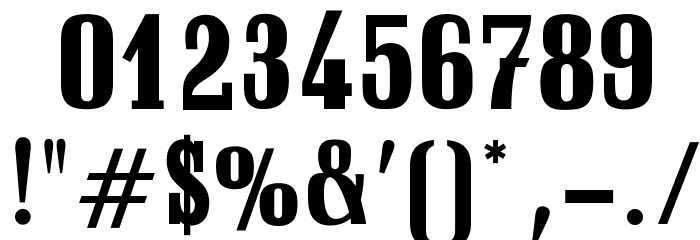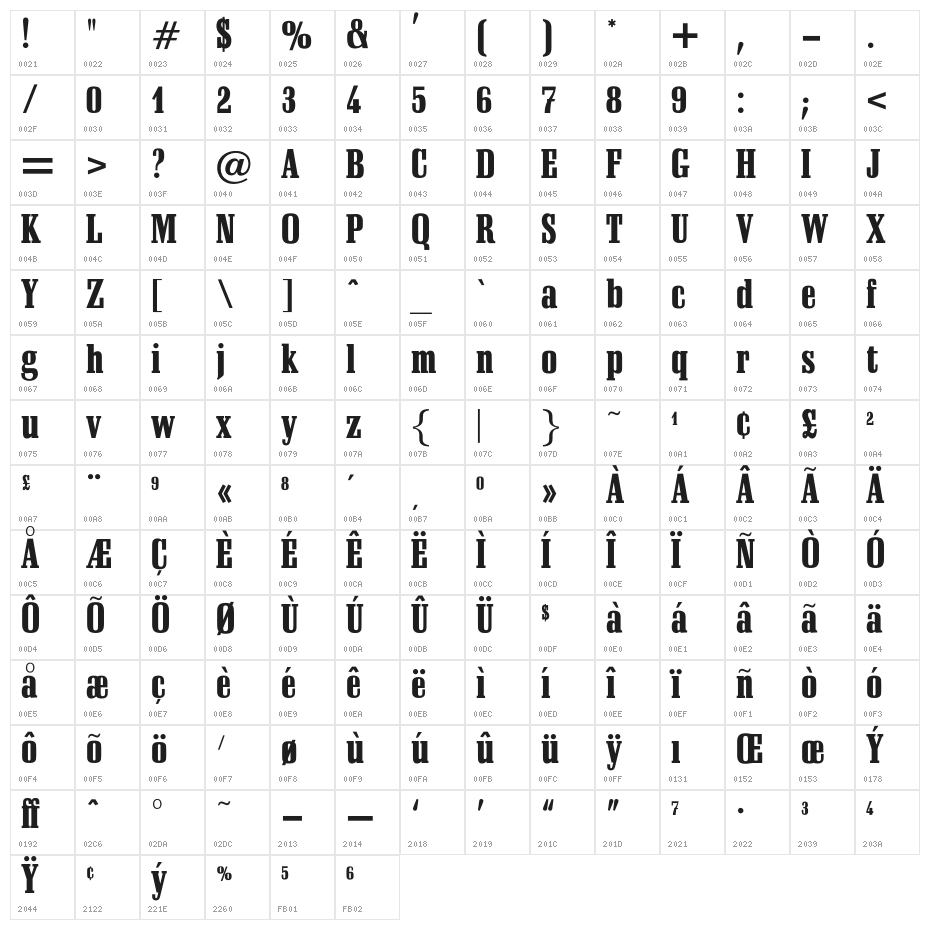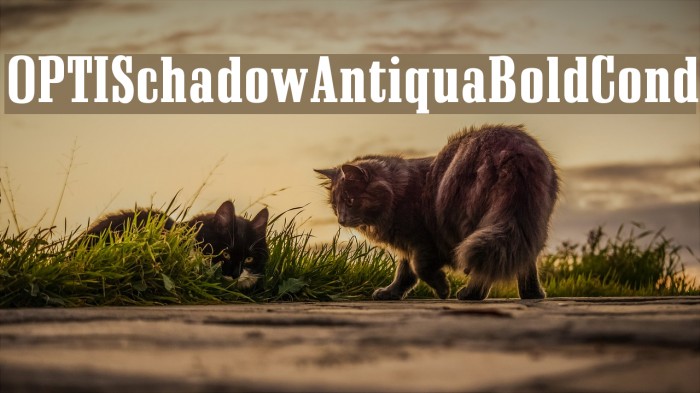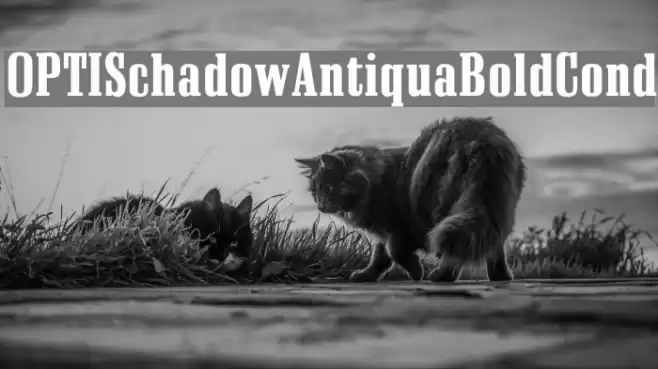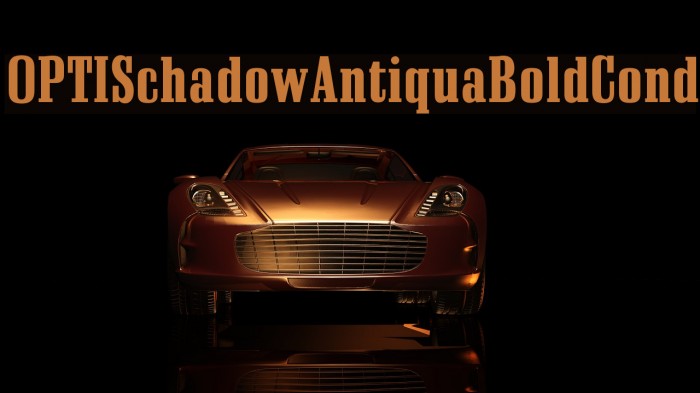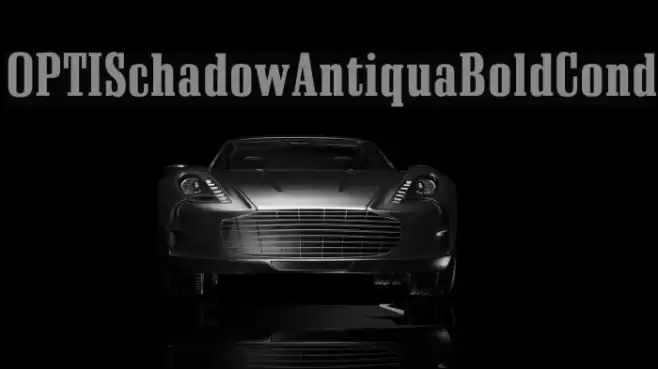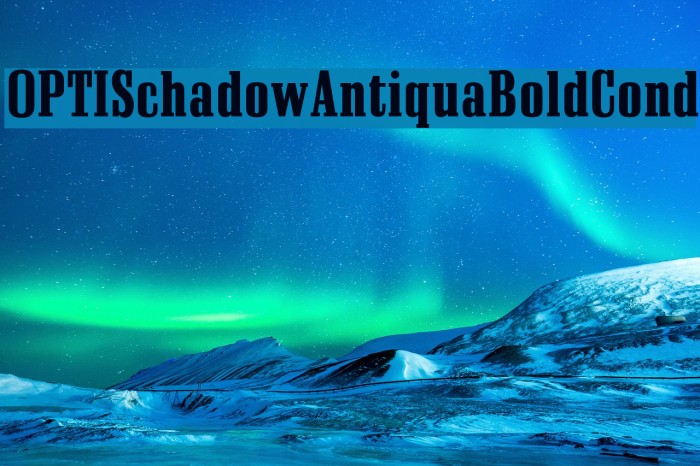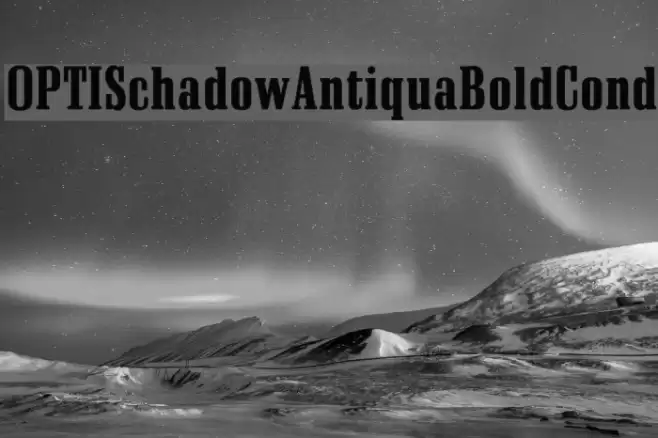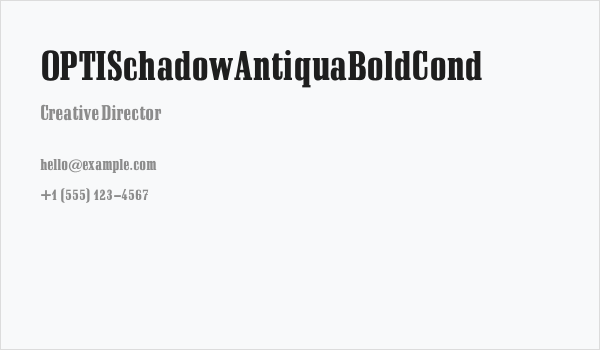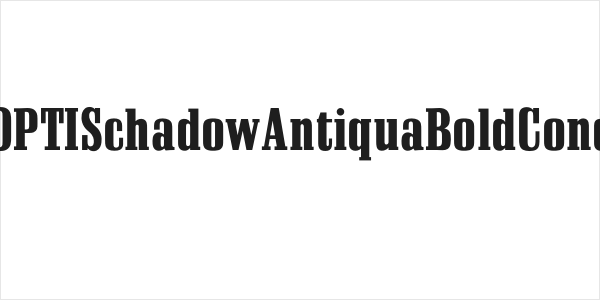
OPTISchadowAntiquaBoldCond Font
OPTISchadowAntiquaBoldCond Description
This font exhibits a bold and commanding presence with its strong, thick strokes and high contrast between thick and thin lines. The serif style adds a touch of classic elegance, while the bold weight ensures it stands out prominently in any design. The characters are well-defined, with a slightly condensed width that allows for efficient use of space without compromising readability. The uppercase letters are particularly striking, making them ideal for headlines or titles. The lowercase letters maintain a consistent style, ensuring harmony across different text sizes. The numerals are clear and robust, suitable for both formal and modern contexts. Special characters are included, providing versatility for various design needs.
| Proposed Projects | Ideal for book covers, editorial headlines, branding, and advertising where a strong, classic presence is desired. |